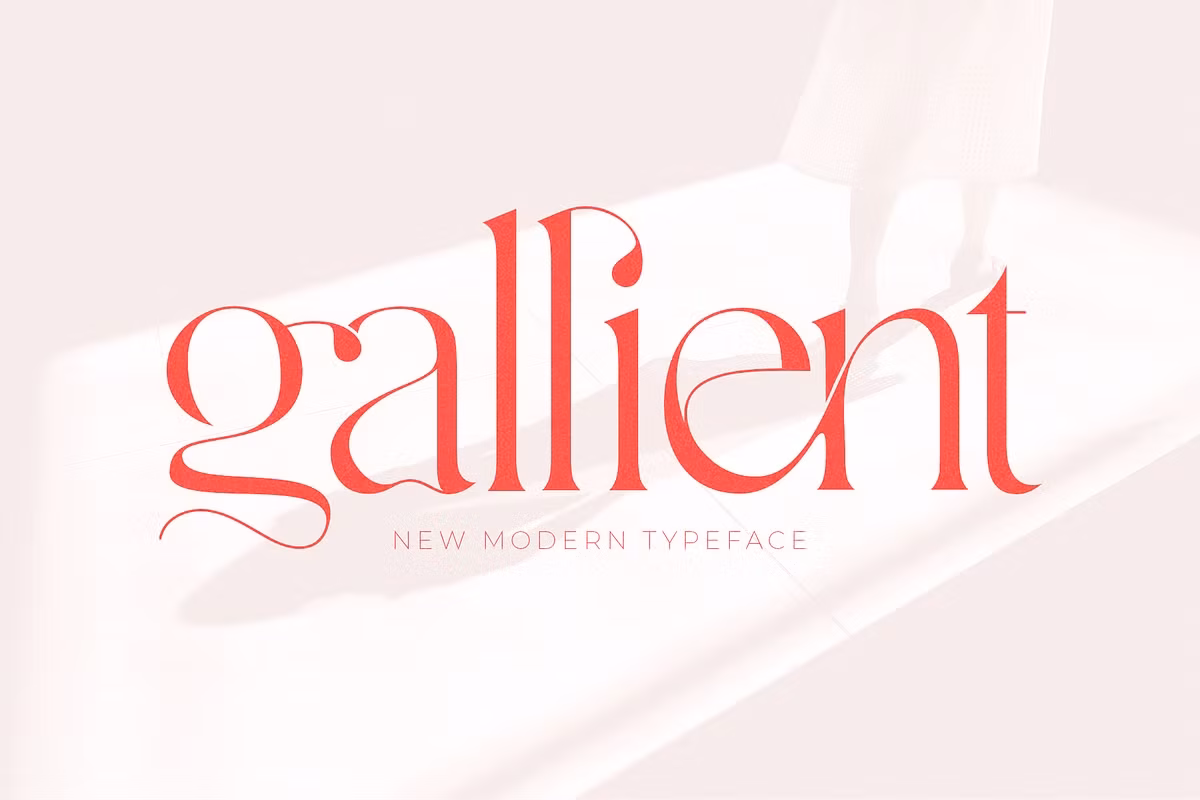
Add bold style and sophistication to your designs with Gallient Font Free Download. This modern, sleek serif typeface features sharp edges and clean lines, making it perfect for luxury branding, editorial design, logos, and high-end digital content.
Gallient combines classic serif elements with a contemporary twist, offering both strength and elegance. It includes uppercase and lowercase letters, numerals, punctuation, and stylistic alternates—ideal for testing out polished and professional layouts.
Perfect for projects that need a modern yet timeless appeal. For any commercial use, be sure to obtain the appropriate license. Download Gallient Font Free Download today and elevate your typography with a refined, bold presence.